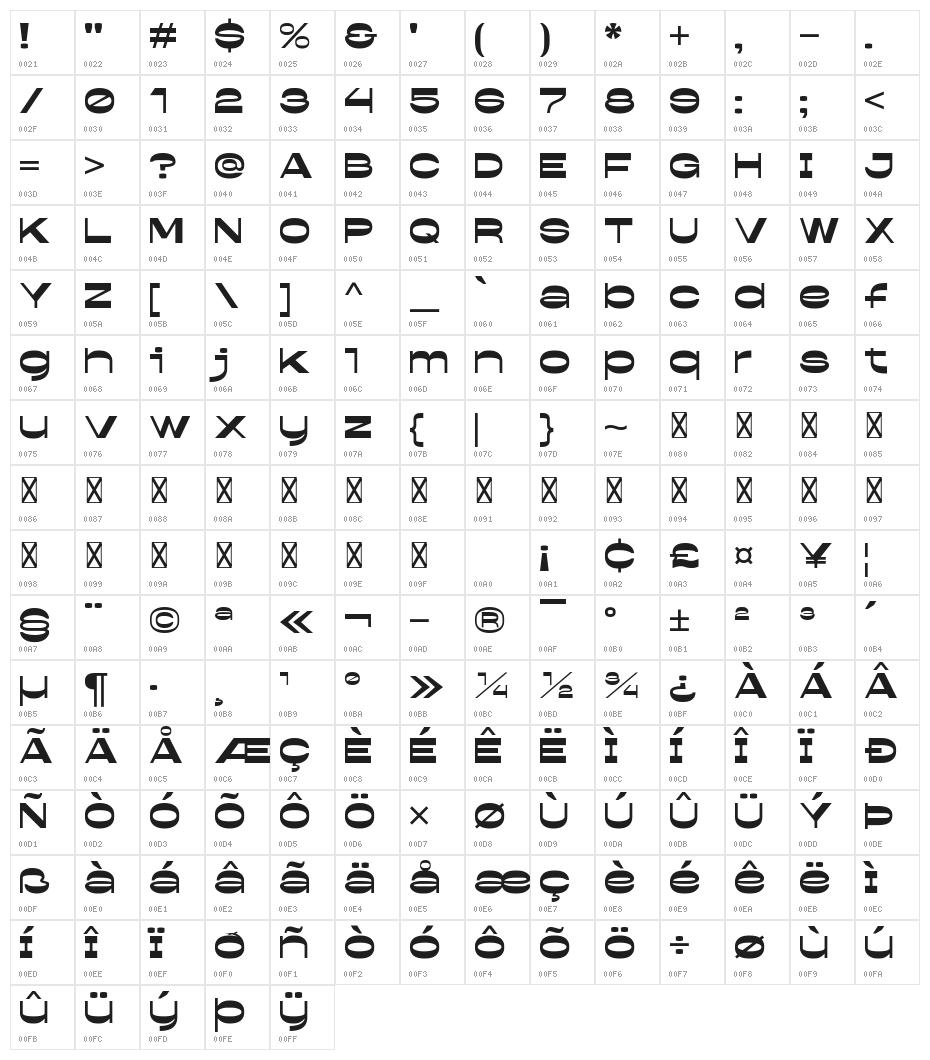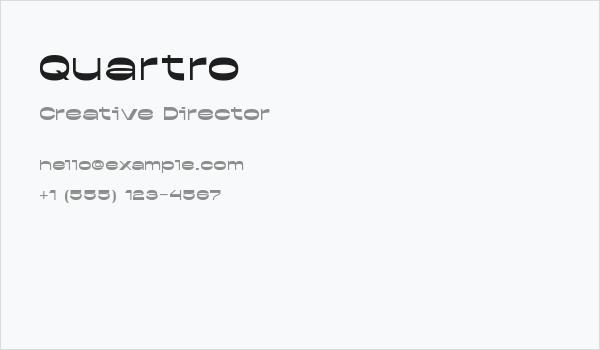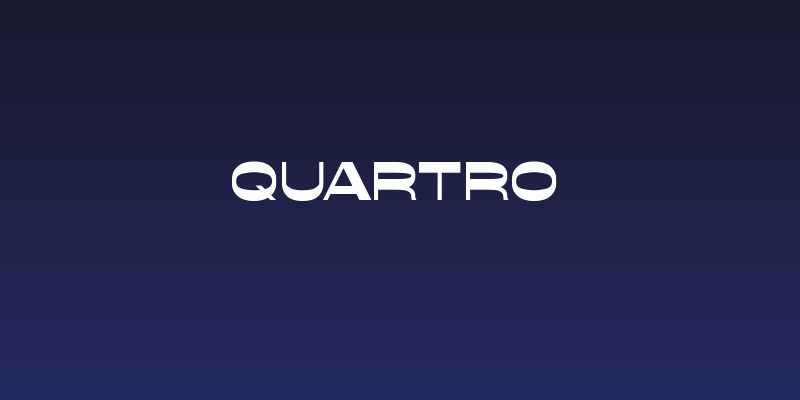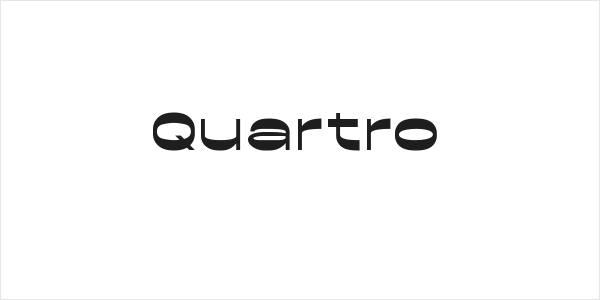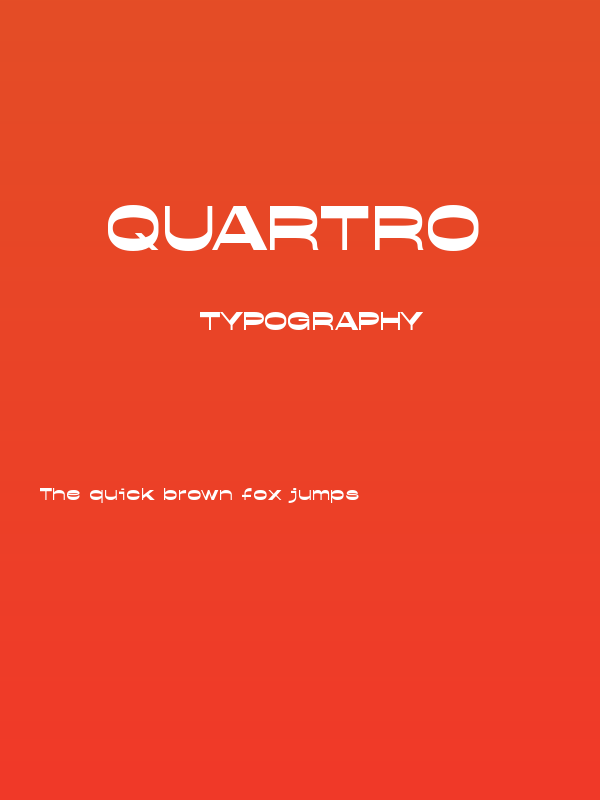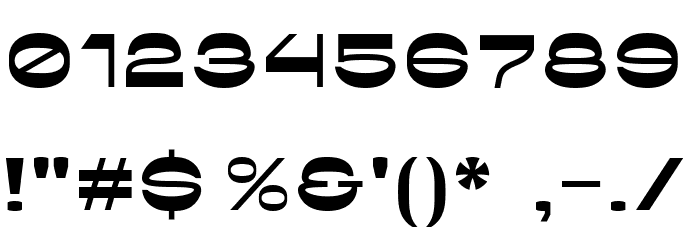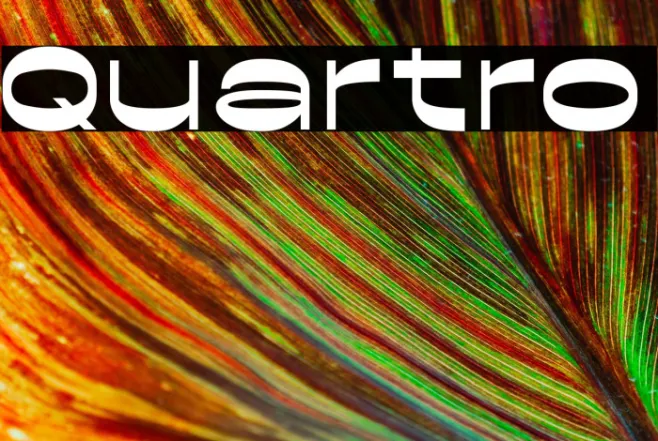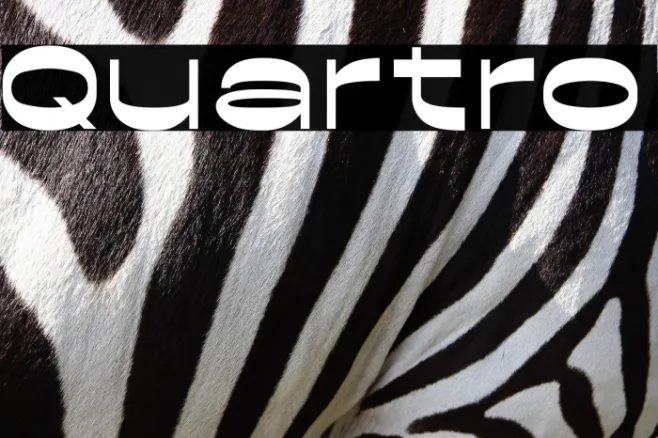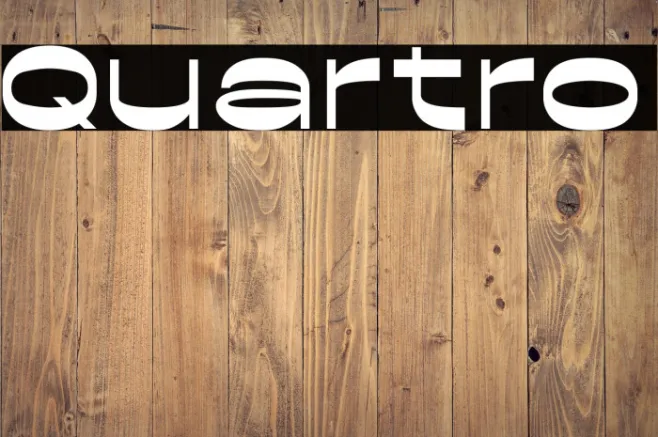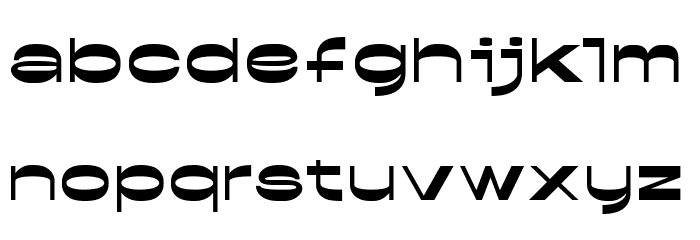
Quartro Font
Quartro Description
This font features a bold and geometric design, characterized by its strong, angular lines and modern aesthetic. The uppercase letters are particularly striking, with a futuristic feel that is both clean and impactful. The lowercase letters maintain this geometric style, offering a consistent look across both cases. Numbers and special characters are designed with the same attention to detail, ensuring a cohesive appearance throughout. The font's unique style makes it ideal for projects that require a contemporary and bold statement.
| Proposed Projects | Ideal for branding, headlines, posters, and any project requiring a modern, bold statement. |